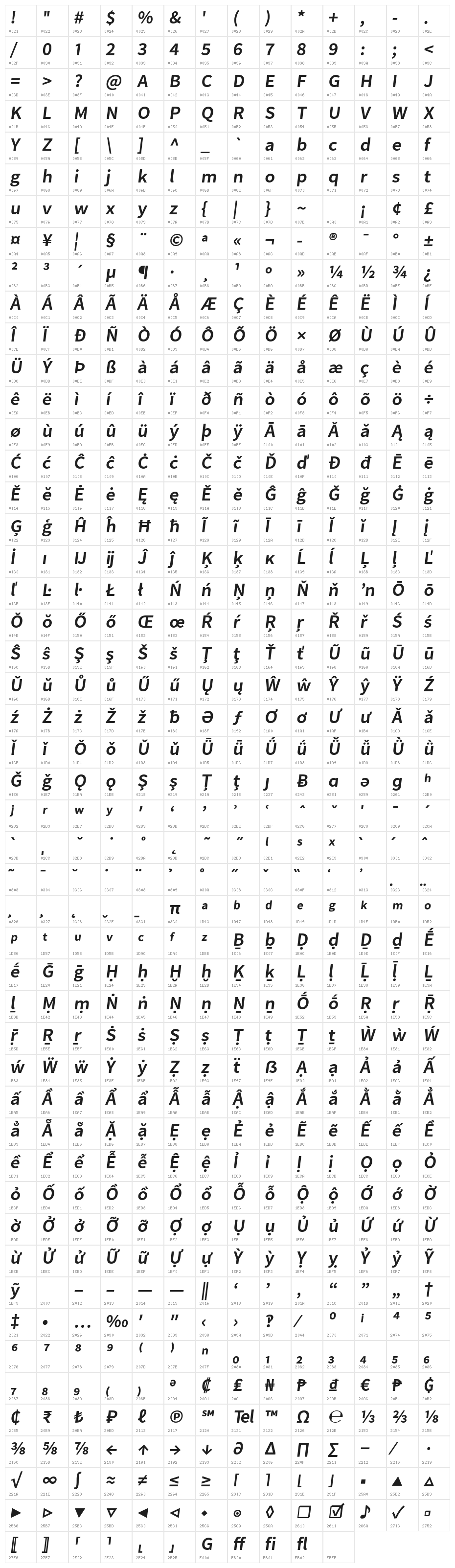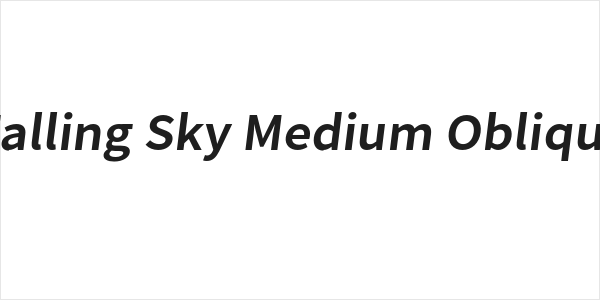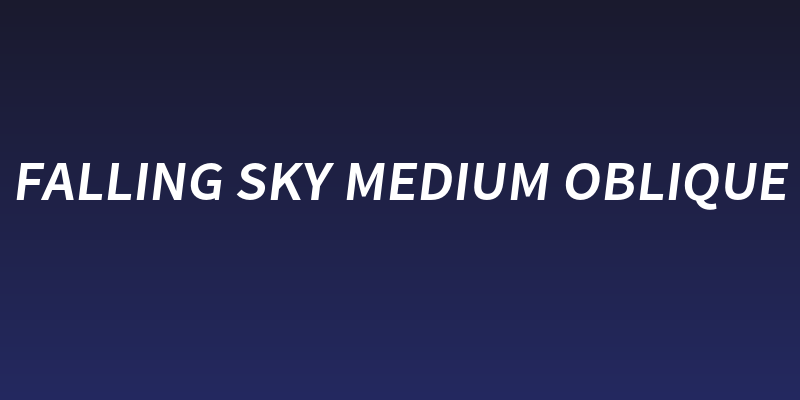
Falling Sky Medium Oblique Font
Falling Sky Medium Oblique Description
This font features a clean and modern sans-serif style with a medium weight and oblique slant, giving it a dynamic and forward-leaning appearance. The characters are well-proportioned, with a slight inclination that adds a sense of motion and energy. The font maintains a consistent stroke width, contributing to its uniform and balanced look. The character spacing is normal, ensuring readability while maintaining a sleek aesthetic. Its design is versatile, making it suitable for various applications where a contemporary and professional look is desired.
| Proposed Projects | Ideal for branding, advertising, digital content, and editorial design where a modern and energetic feel is needed. |